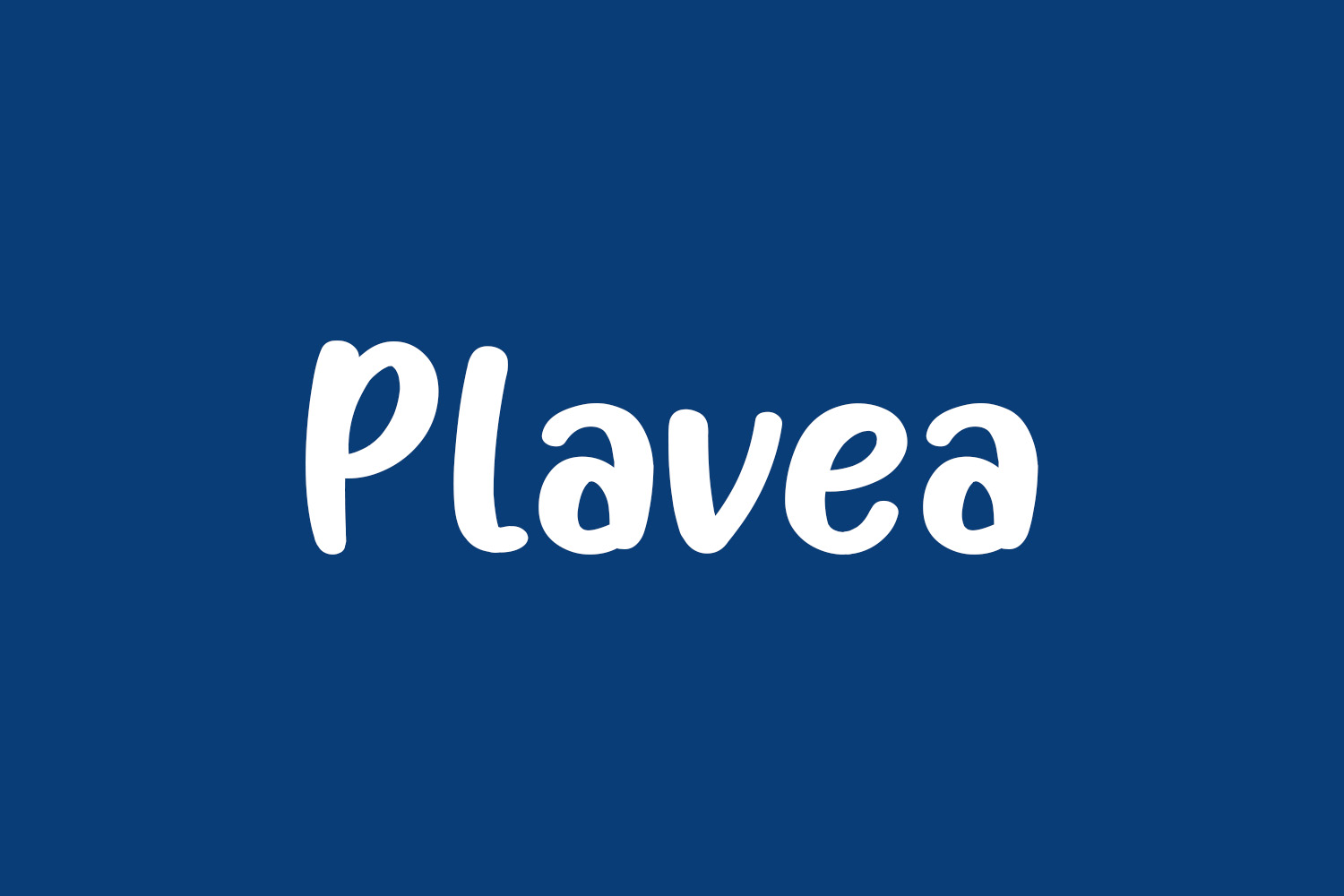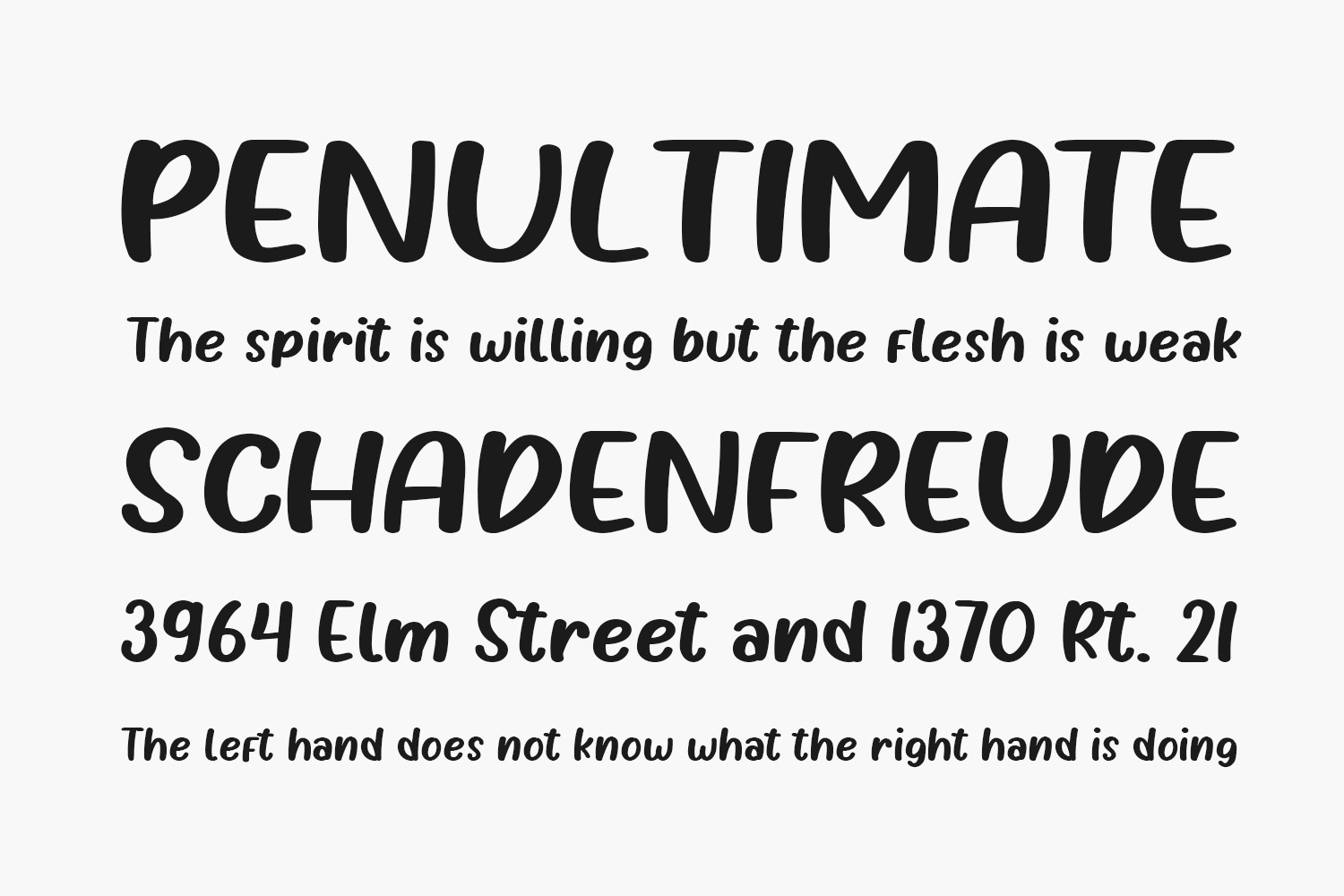
Plavea Free Font is a sweet and friendly display font. Add it to your most creative ideas and notice how it makes them come alive. Plavea Free Font was designed by Viswell Studio and is free for personal use only. Please purchase the full version for commercial use.
Designed by Viswell Studio